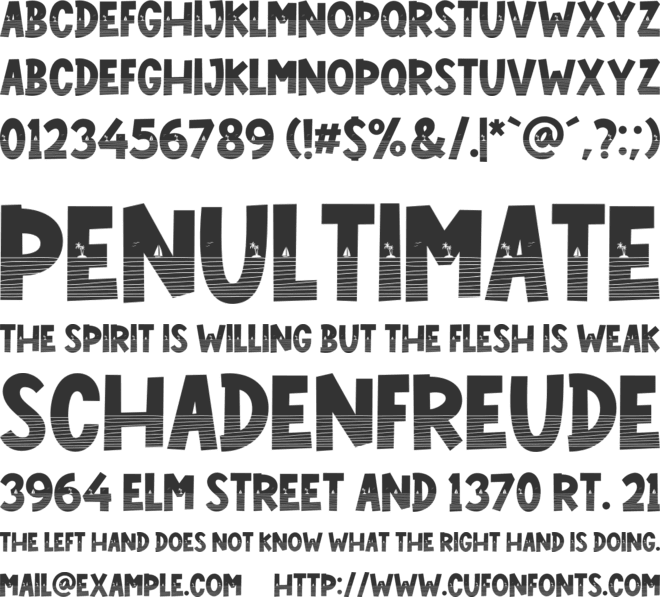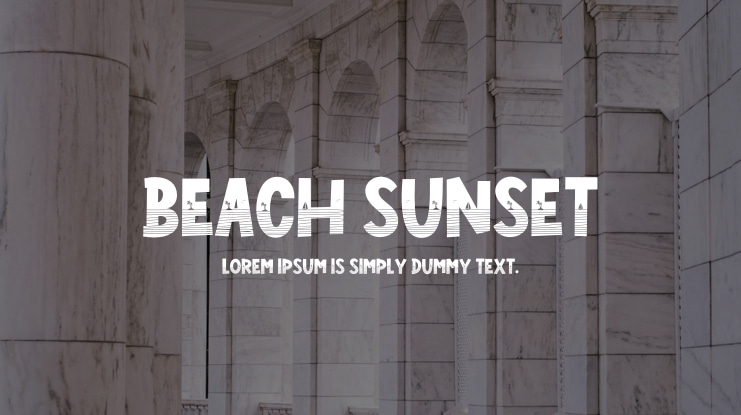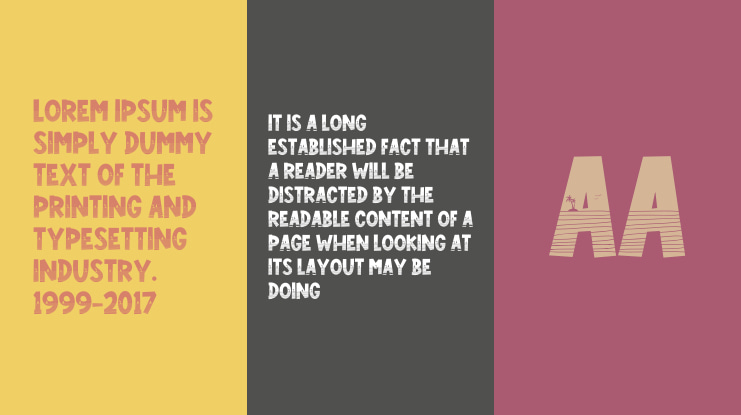
Beach Sunset Font
Introducing "Beach Sunset"Beach Sunset - A Display FontYou Can Mix And Match for Your Awesome ProjectThis font is ideal for crafting, branding, and decorate your any project. This font is perfect for wedding invitations or your blog. Also with their help, you can create a logo or beautiful frame for your home. Or just use it for your business, book covers, stationery, marketing, magazines, and more.FEATURES :Uppercase & LowercaseNumber & PunctuationMultilingual LanguagePUA EncodeFILES INCLUDED :Beach Sunset OTFBeach Sunset TTFBeach Sunset WOFFFor more free font downloads please go to https://fontbundles.net/free-fonts